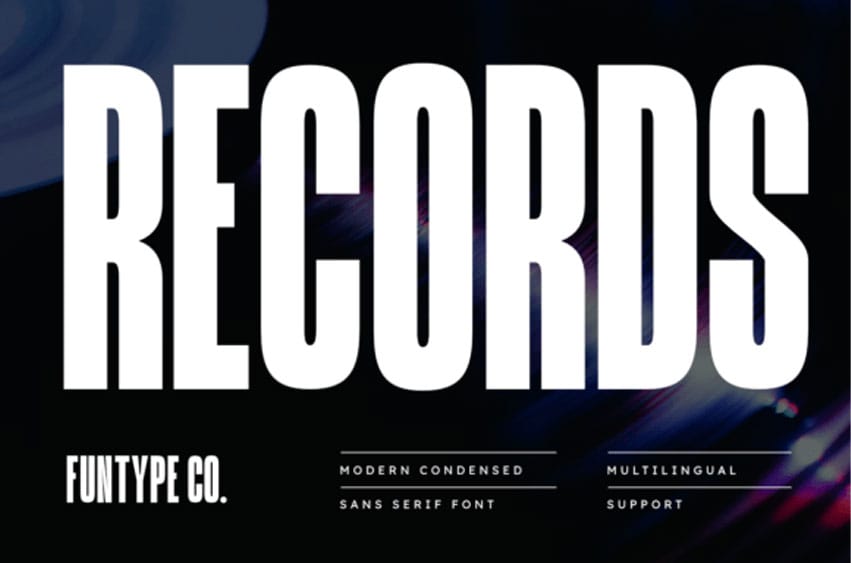
Records Font is a towering, robust, and beautifully balanced modern condensed sans serif font designed for high-impact and precise professional display typography.
Featuring a narrow geometric block layout and deep vertical contrast, this font is perfect for strong headlines, urban streetwear clothing labels, custom music merchandise, technology product packaging, and bold vinyl event posters. Its confident, tall, and sleek presentation gives your designs an advanced, nostalgic, yet timeless look on screen prints and custom stickers.